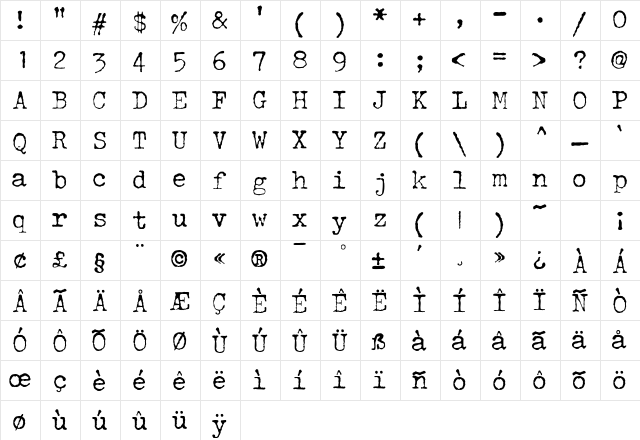
JohnDoe Roman
Design Context for JohnDoe Typeface
JohnDoe takes a measured approach to typography — its balanced proportions and neutral character make it a reliable workhorse for both digital and print work.